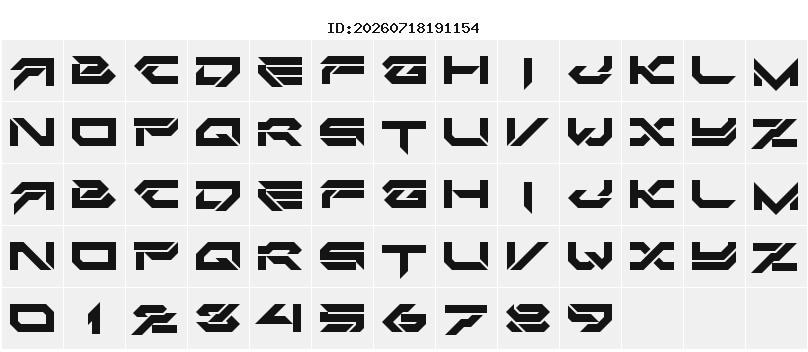
• Font Name: Critical Mass LDR
• Full Font Name: Critical Mass LDR Regular
• Designer: Michał “Neoqueto” Nowak
• Description: ‚ÄúCritical Mass LDR‚Äù was built with FontStruct ‚ÄúCritical Mass LDR‚Äù is based on ‚ÄúCorruptor Clean LDR‚Äù by ‚ÄúMichał “Neoqueto” Nowak‚Äù (http://fontstruct.com/fontstructors/neoqueto)
About Critical Mass LDR.ttf
Critical Mass LDR.ttf is a modern, elegant sans-serif font designed for ultimate readability and visual harmony. Perfect for branding, headlines, web design, and print materials.